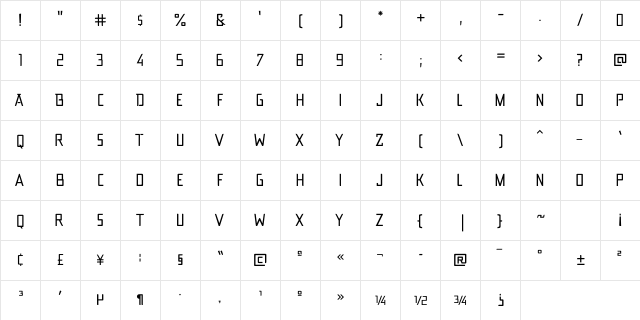
Athenaz Regular
| Designer | Daniel Herdianto |
Design Context for Athenaz Typeface
Athenaz is a composed and adaptable typeface that performs quietly and consistently across a wide range of design contexts.